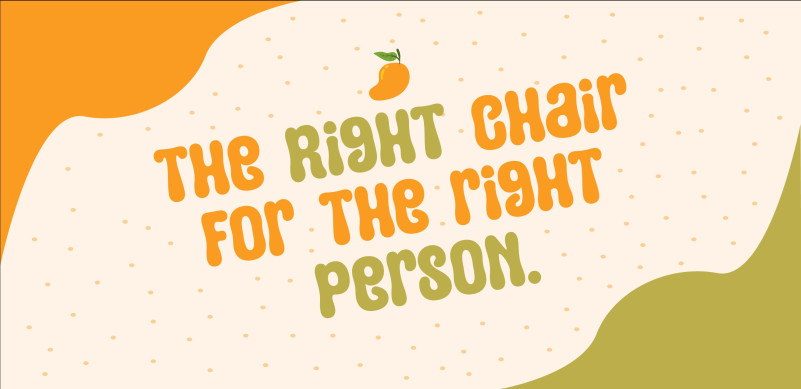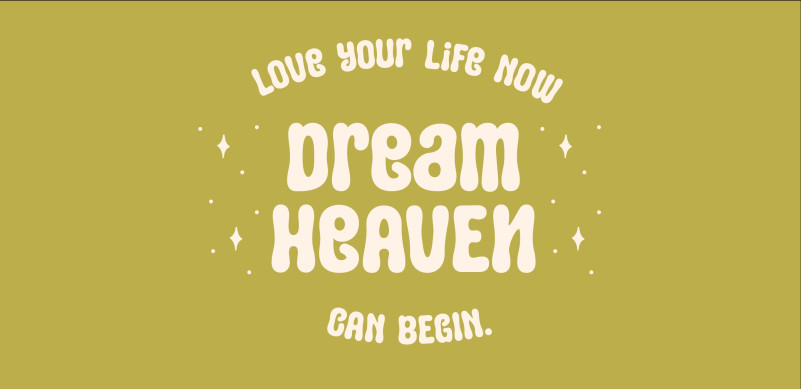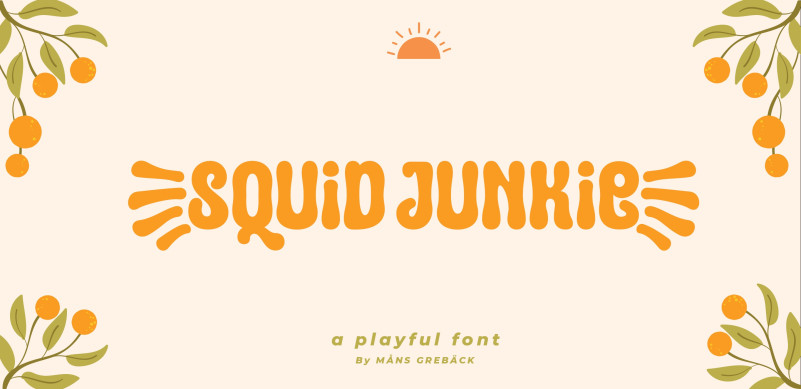
Squid Junkie Font
Squid Junkie Display Font, is a chunky, comic, and cartoon display font. With its neat and joyful personality, this font will enhance any project you wish to create!
Use parenthesis symbols ( ) { } [ ] to create tentacles.
Example: (OCTUPUS)